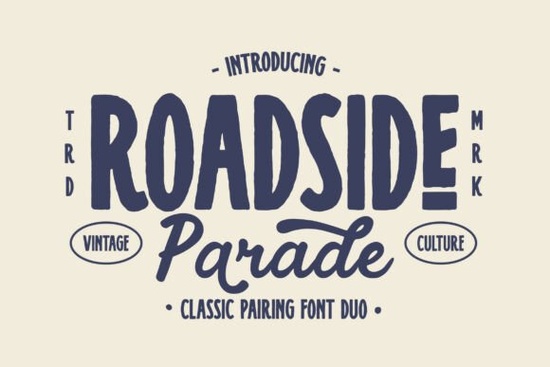
Finding the right typography can make or break a design project. When you need a balance between clean structure and a personal touch, the Roadside Font offers a practical solution. This typeface pairs a sleek sans serif with a smooth, expressive script. It gives designers, crafters, and small business owners a reliable way to mix professional readability with a natural handwritten feel. Whether you are setting up a new online shop, creating digital downloads, or refreshing your current visual identity, having both styles in one package saves time and keeps your branding consistent across all your physical and digital materials.
How does a sans and script duo improve branding?
Mixing two distinct styles helps create a clear visual hierarchy. The structured sans serif handles longer text, like product descriptions, website copy, or care instructions, keeping everything easy to read. Meanwhile, the flowing script draws attention to specific words, such as a brand name, a logo mark, or a special seasonal announcement. For print-on-demand sellers and creative hobbyists making custom Cricut decals, this contrast is highly useful. You can use the bold sans for a t-shirt graphic's main text and add the script underneath for a stylish subtitle. If you are exploring other pairing options for your shop, you might also look at the Indigo typeface collection to see how different duos handle similar layouts.
What projects work best with mixed typography?
This specific combination shines in areas where you want to feel approachable but still look professional. Here are a few ways to apply it:
- Logos and Wordmarks: Use the script for the primary brand name and the sans serif for a clean, minimalist tagline.
- Packaging Design: The neat letters work well for ingredient lists, while the handwritten style adds a boutique feel to the front label.
- Social Media Graphics: Create quote templates where the sans serif forms the body text and the script highlights key phrases.
- Wedding and Event Invitations: The elegant flow of the script pairs nicely with the modern lines of the sans for RSVP details and addresses.
Are there extra features for custom lettering?
Standard letters only go so far when you want a truly unique look. This typeface includes ligatures and alternate characters to help you customize your text. Ligatures automatically connect specific letter combinations, making the script look like it was written in one continuous stroke rather than typed on a keyboard. Alternates give you different versions of the same letter, so you can avoid repetitive shapes in longer words. It also includes multilingual support, which is essential if you are designing packaging, menus, or signage for an international audience. If you prefer a slightly softer, more playful vibe for your handwritten elements, checking out the More Sugar designs might give you some fresh inspiration. And if you want to review the specific file formats and licensing details for our main feature, you can always revisit the Roadside product page before downloading.